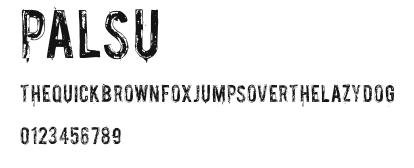
Palsu.ttf is a modern, elegant sans-serif font designed for ultimate readability and visual harmony. Perfect for branding, headlines, web design, and print materials.